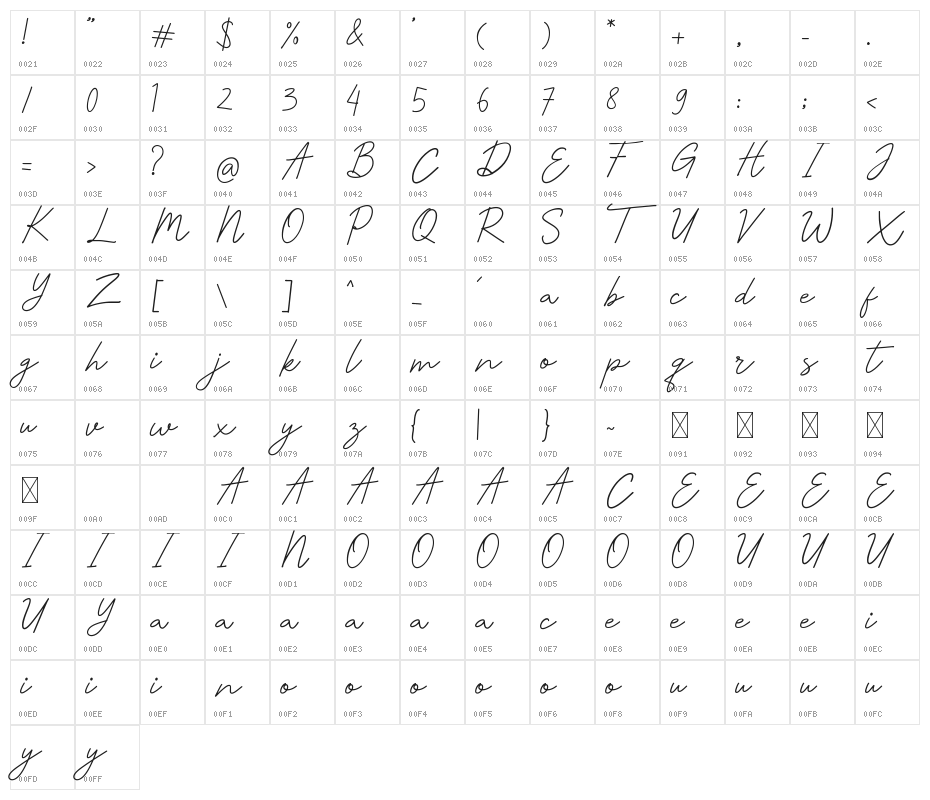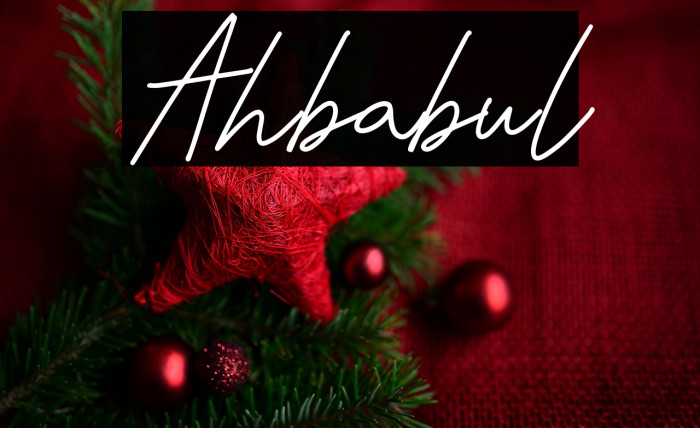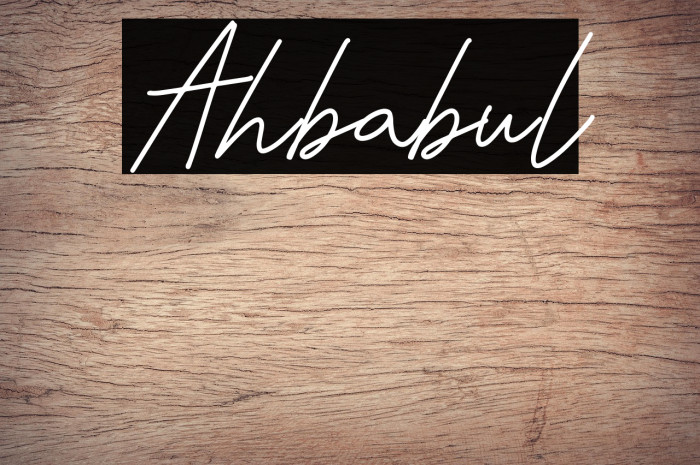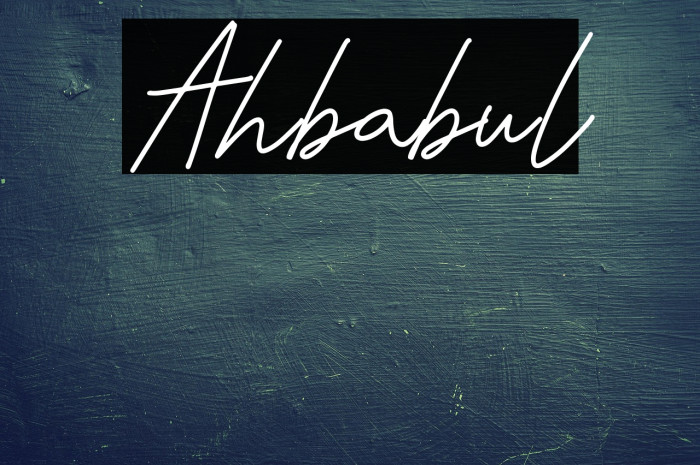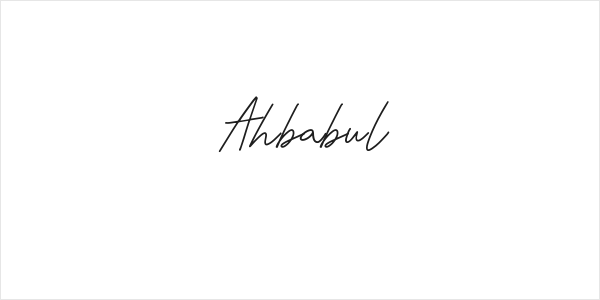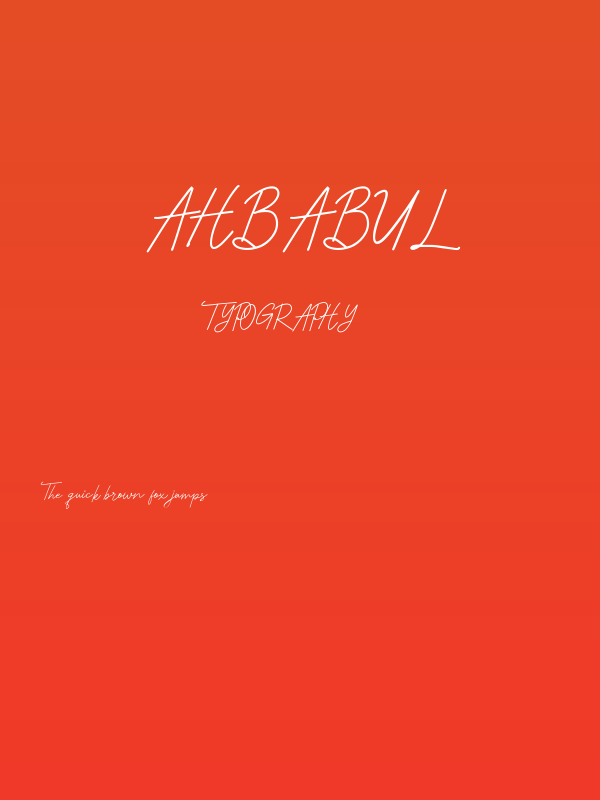
Ahbabul Font
Ahbabul Description
This font features a flowing, cursive style with a handwritten appearance. The letters are connected, creating a seamless and elegant look. The uppercase letters are slightly larger and more pronounced, while the lowercase letters maintain a consistent flow. Numbers and special characters are designed to match the cursive style, adding to the overall cohesive appearance. The strokes are thin, giving the font a delicate and sophisticated feel. This font is ideal for projects that require a personal touch or an elegant aesthetic.
| Proposed Projects | Ideal for wedding invitations, greeting cards, personal branding, and elegant logos. |